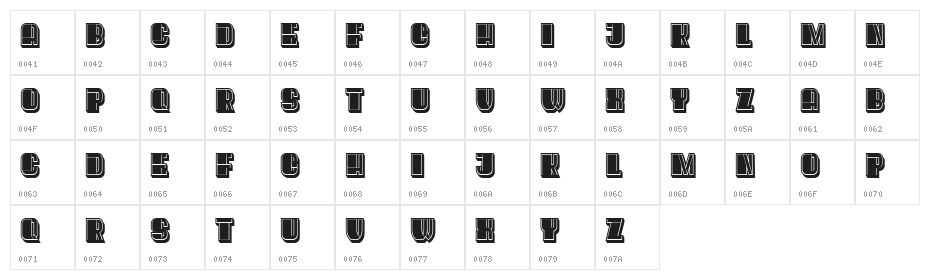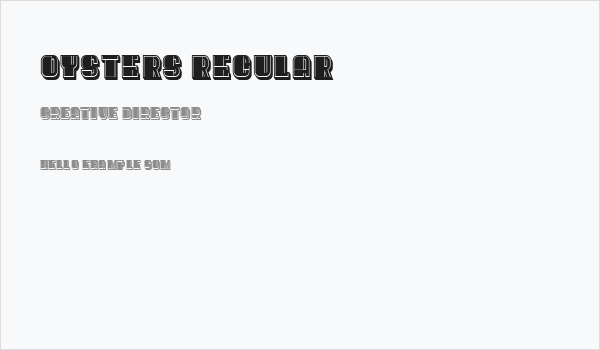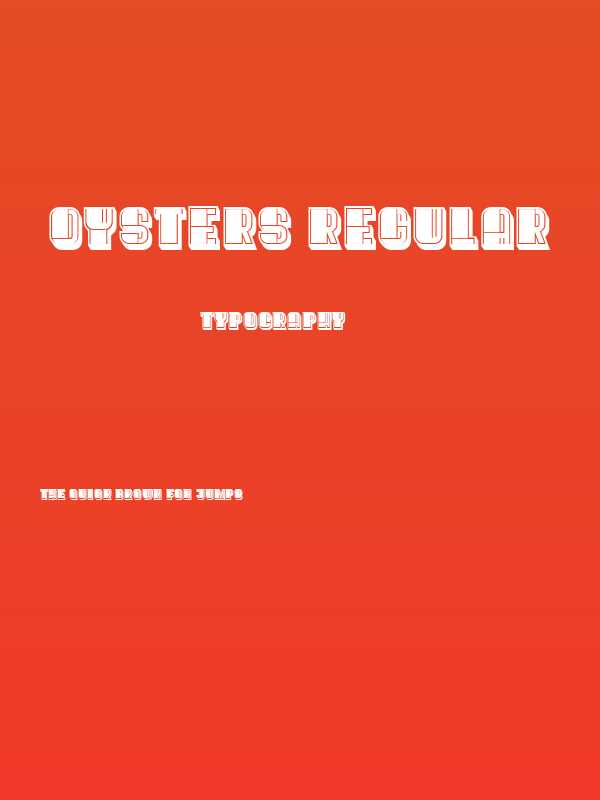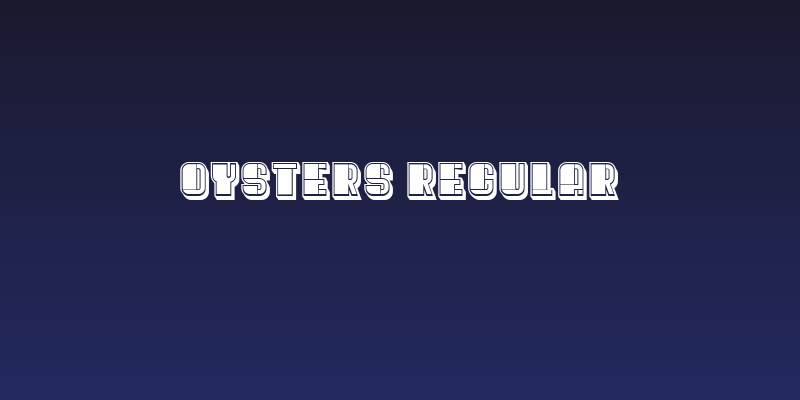
Oysters Regular Font
Oysters Regular Description
This font features a bold, geometric design with a three-dimensional effect created by the use of shadowing and outlines. The characters are blocky and robust, with a strong presence that makes them stand out. The uppercase letters are uniform in height, while the lowercase letters maintain a consistent style, contributing to a cohesive look. The numbers and special characters follow the same bold and structured design, ensuring versatility across different uses. The font's unique style is both modern and eye-catching, making it suitable for a variety of creative projects.
| Proposed Projects | Ideal for posters, logos, headlines, and any design requiring a bold statement. |